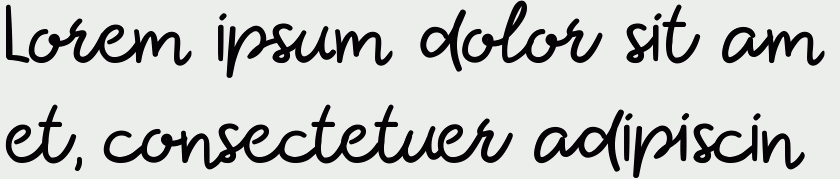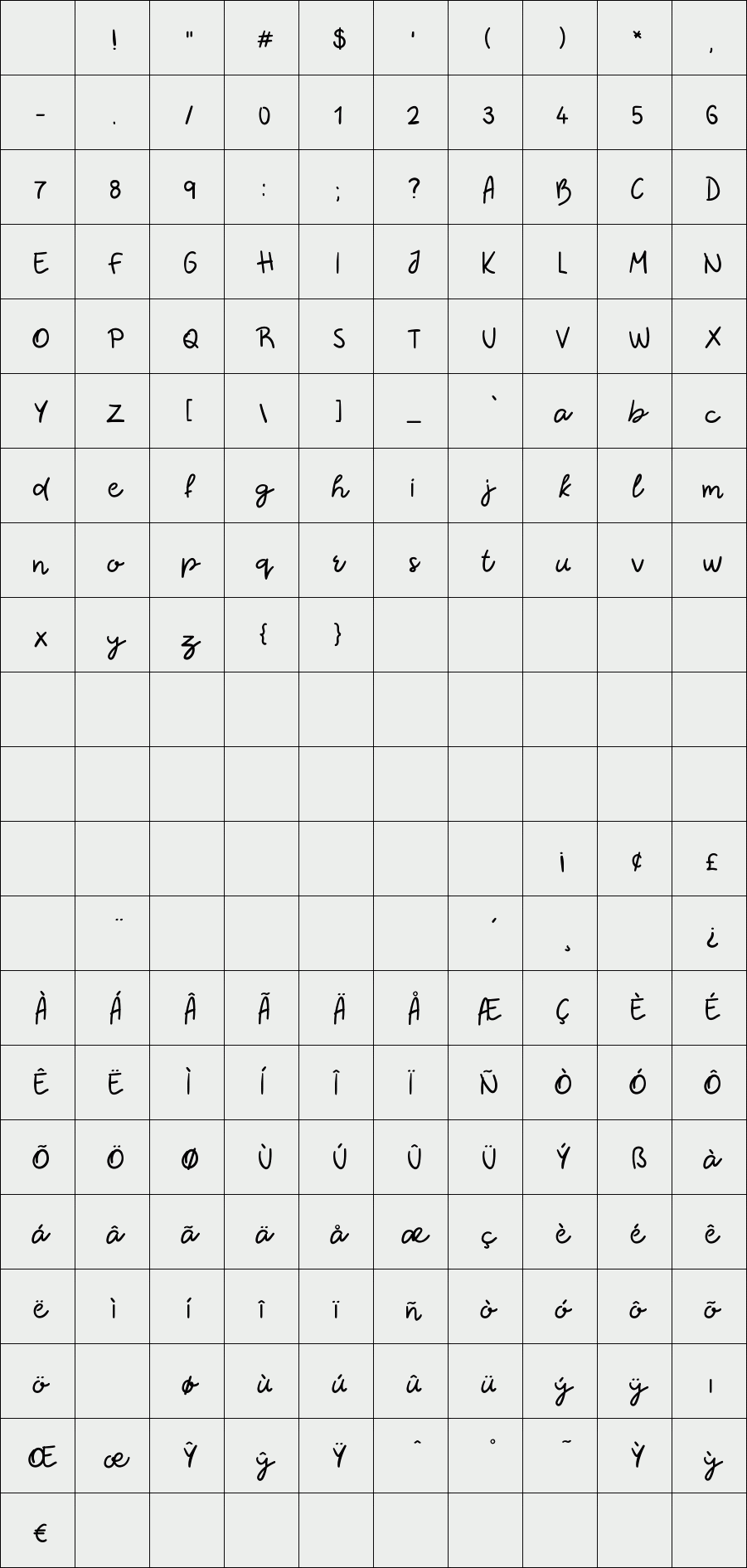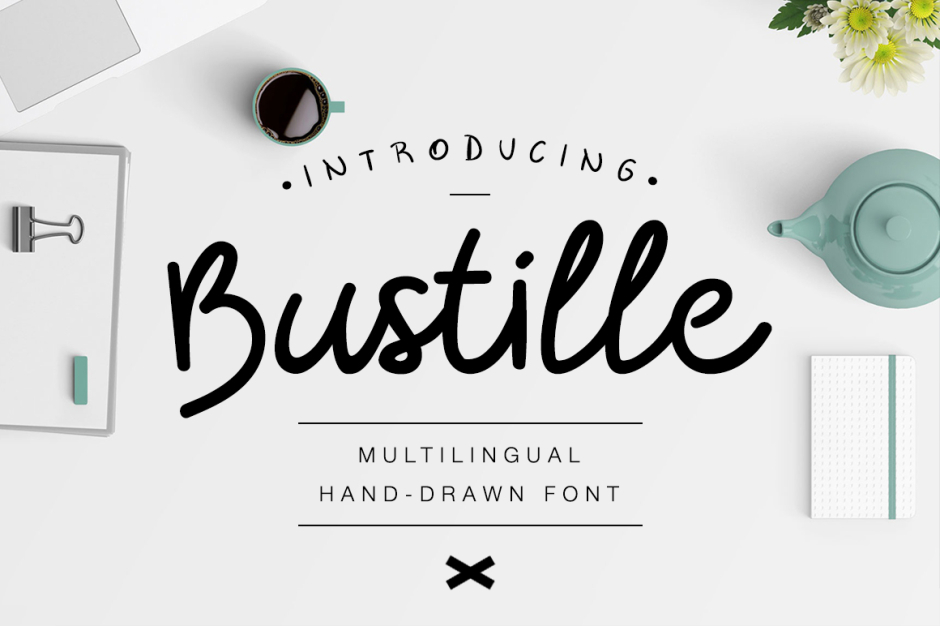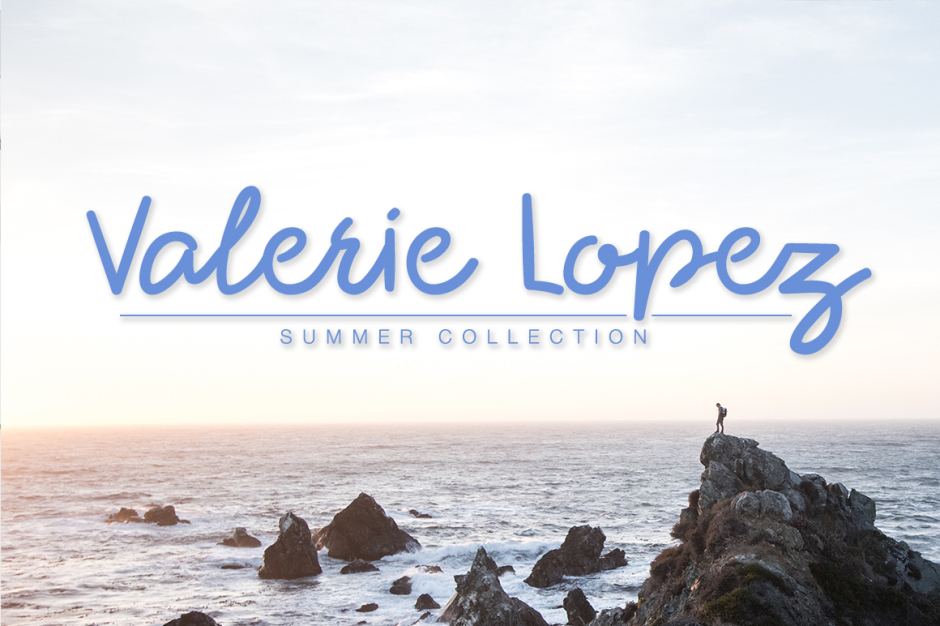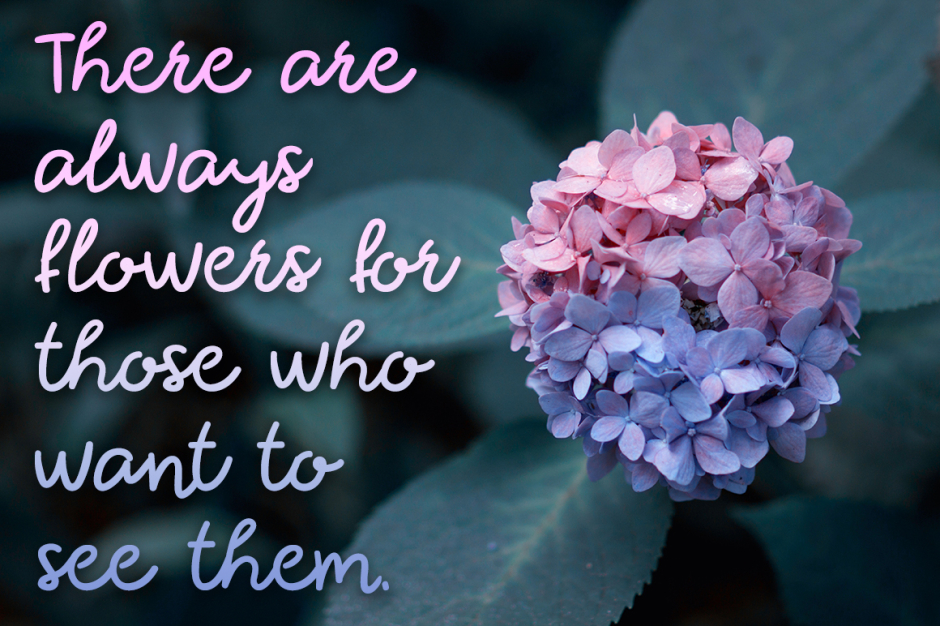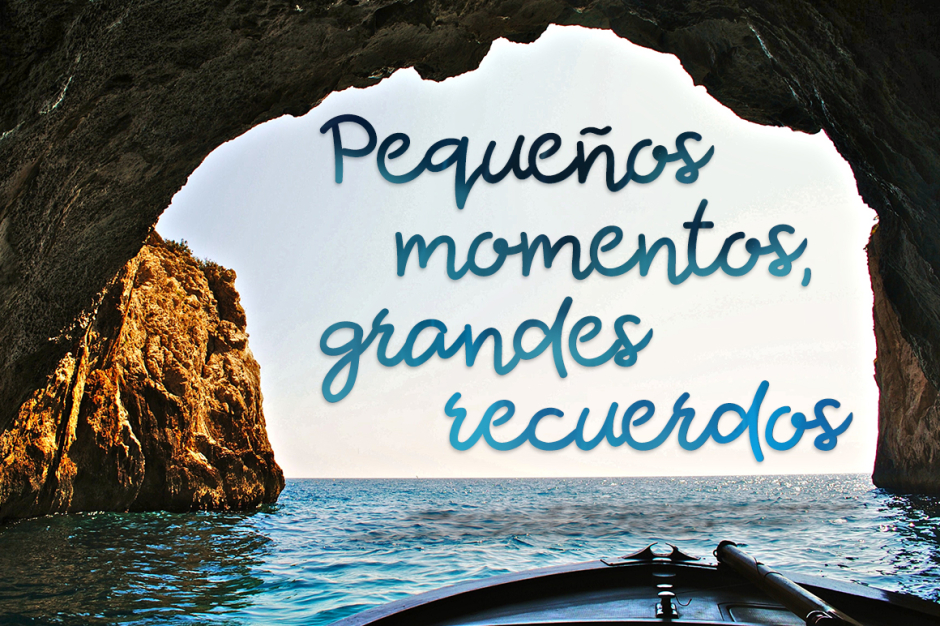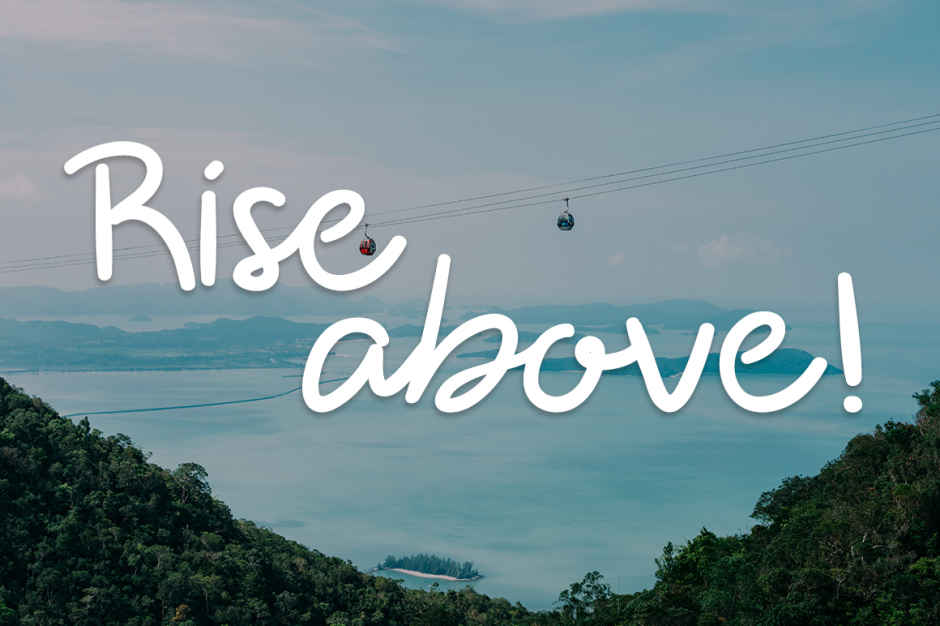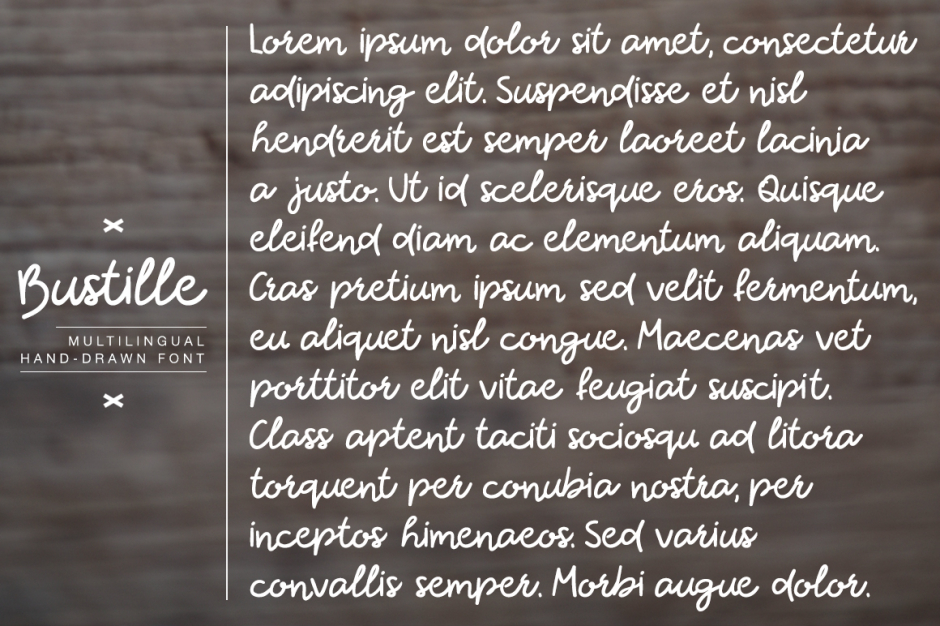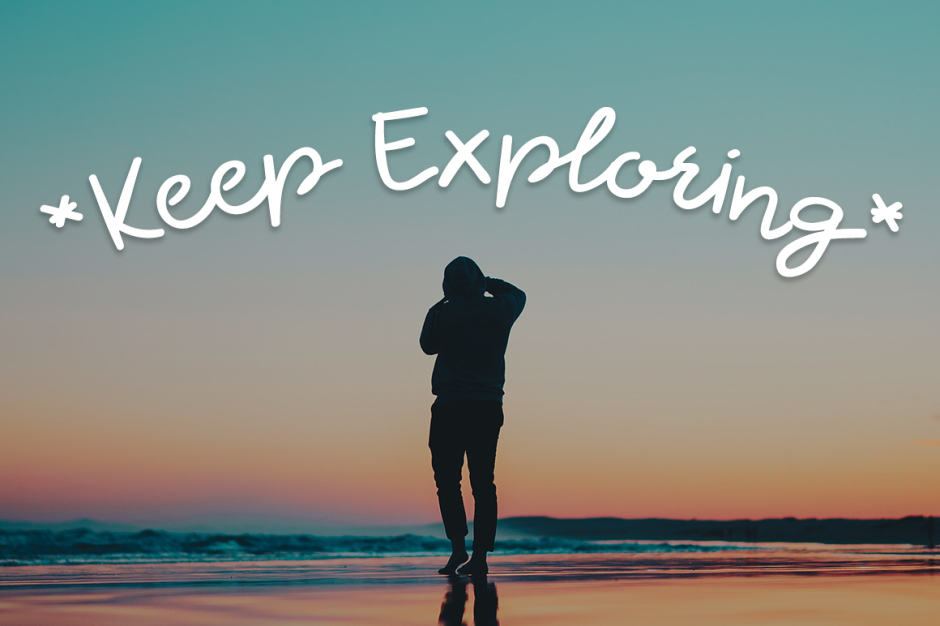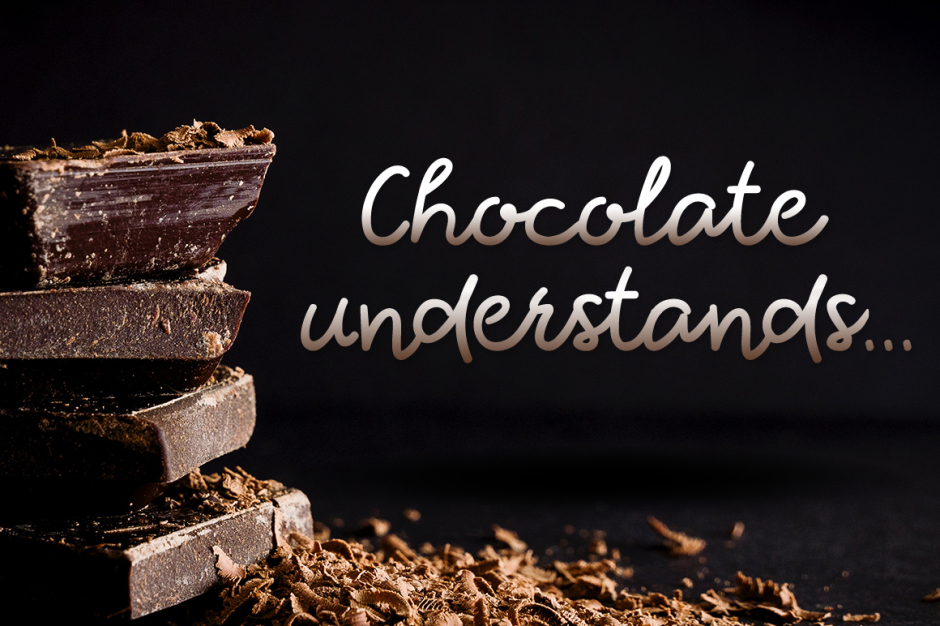
Bustille
Bustille, a script font crafted by hand.
Bustille includes all uppercase and lowercase letters, numerals, punctuation, symbols, ligatures and multilingual characters.
With over 60 multilingual characters and accents, Bustille font supports more than 12 languages as English , Spanish, French, Italian, German, Swedish, Danish, Norwegian, Portuguese, Catalan, Finnish, Dutch among others. All characters can be checked on the presentation images above.
Bustille is ideal for many cases. It can be used in logo design, packaging, posters, branding, book covers, quotes, magazines, wedding stationery and more.
Even if your project is modern or retro style based, Bustille font will give it a unique and special style.